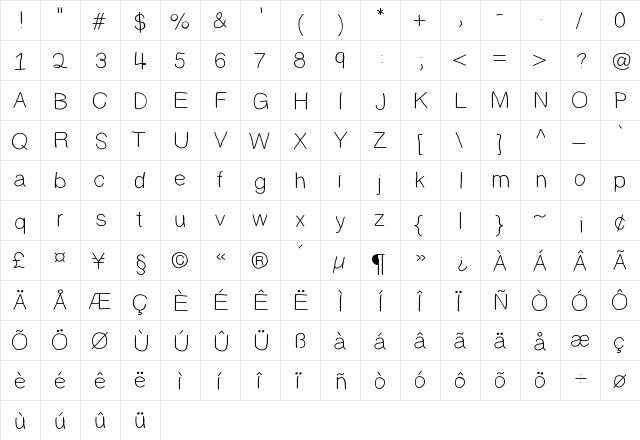
Randy Medium
Design Context for Randy Typeface
Randy is a composed and adaptable typeface that performs quietly and consistently across a wide range of design contexts.